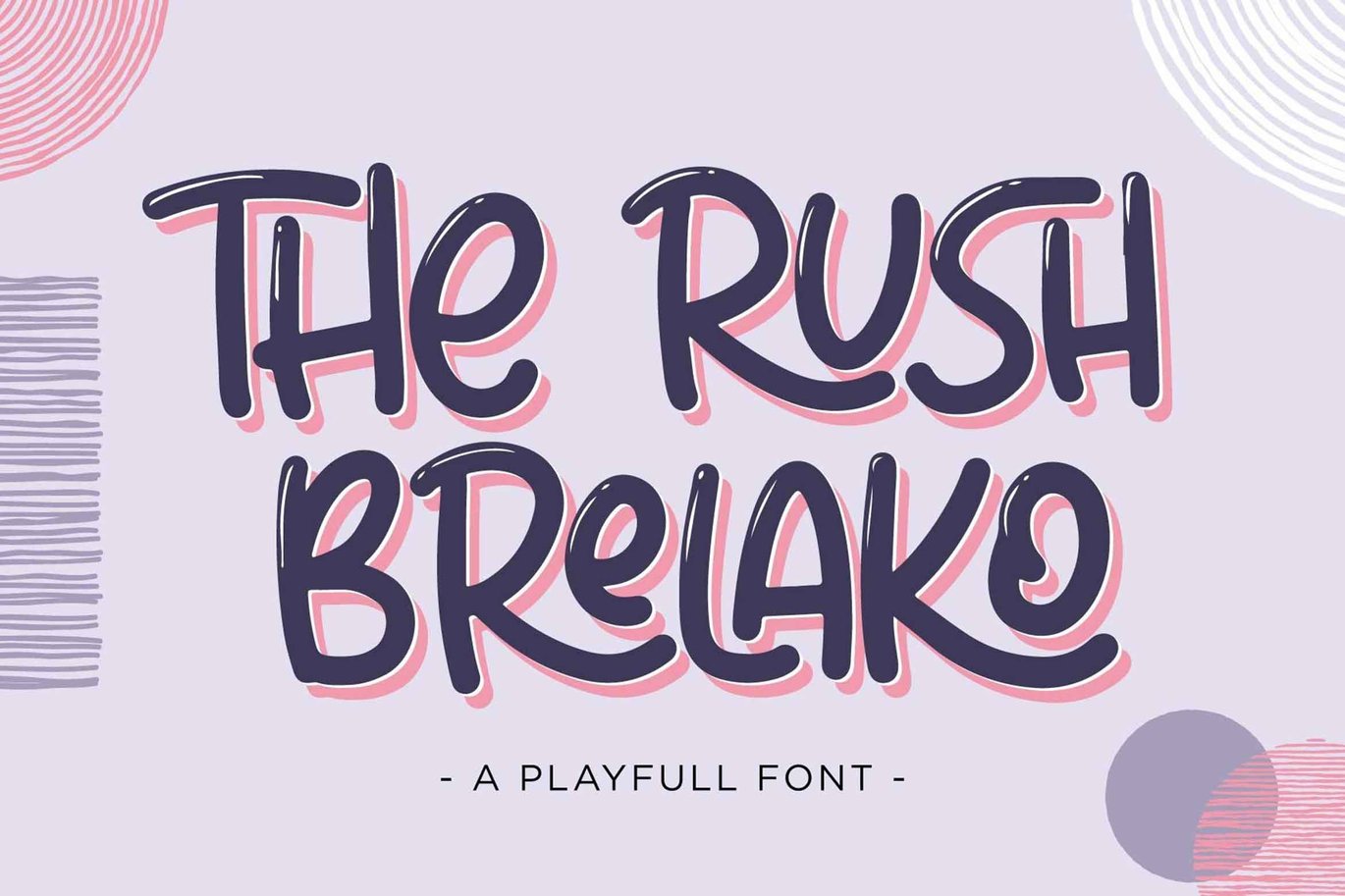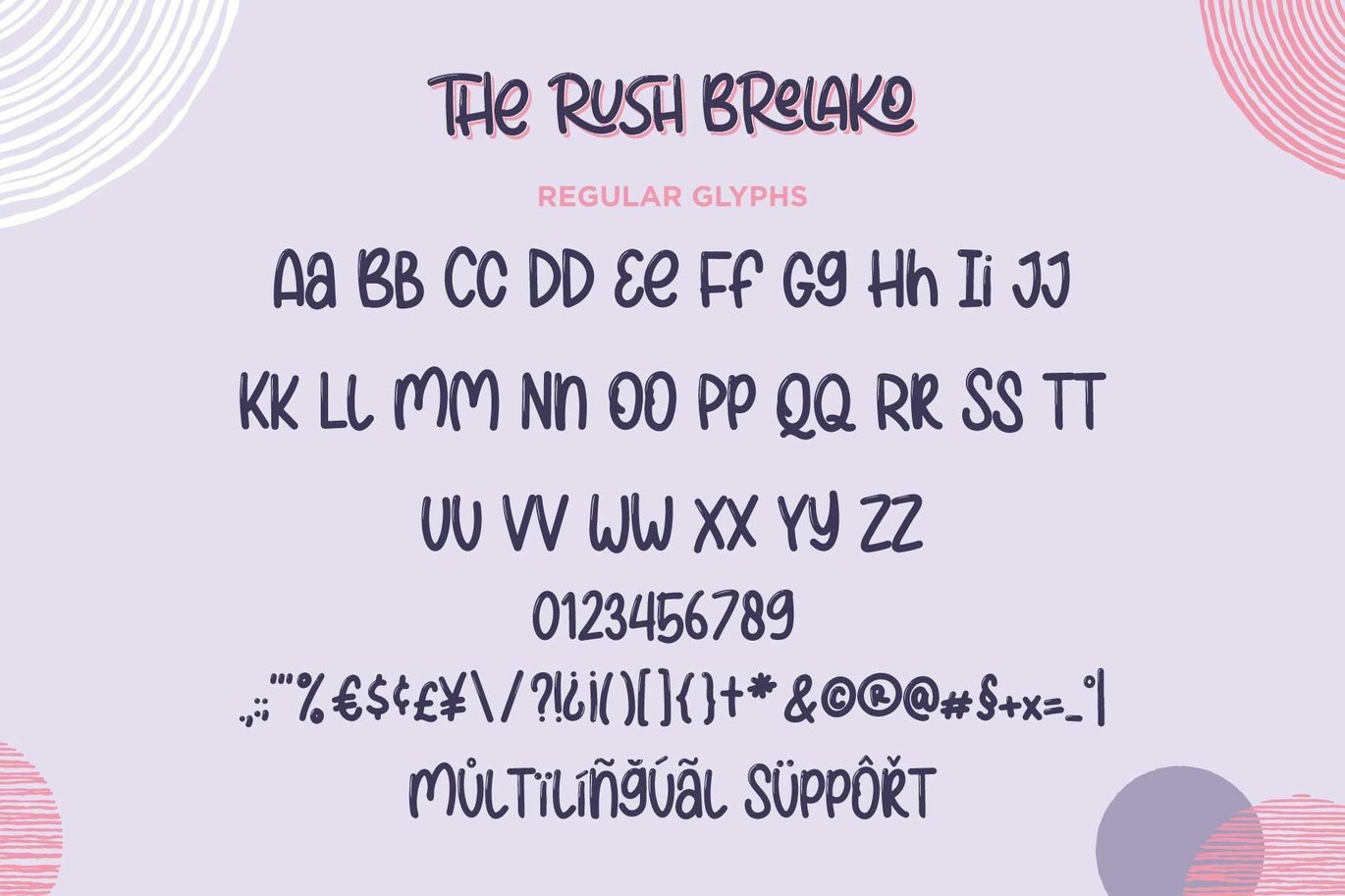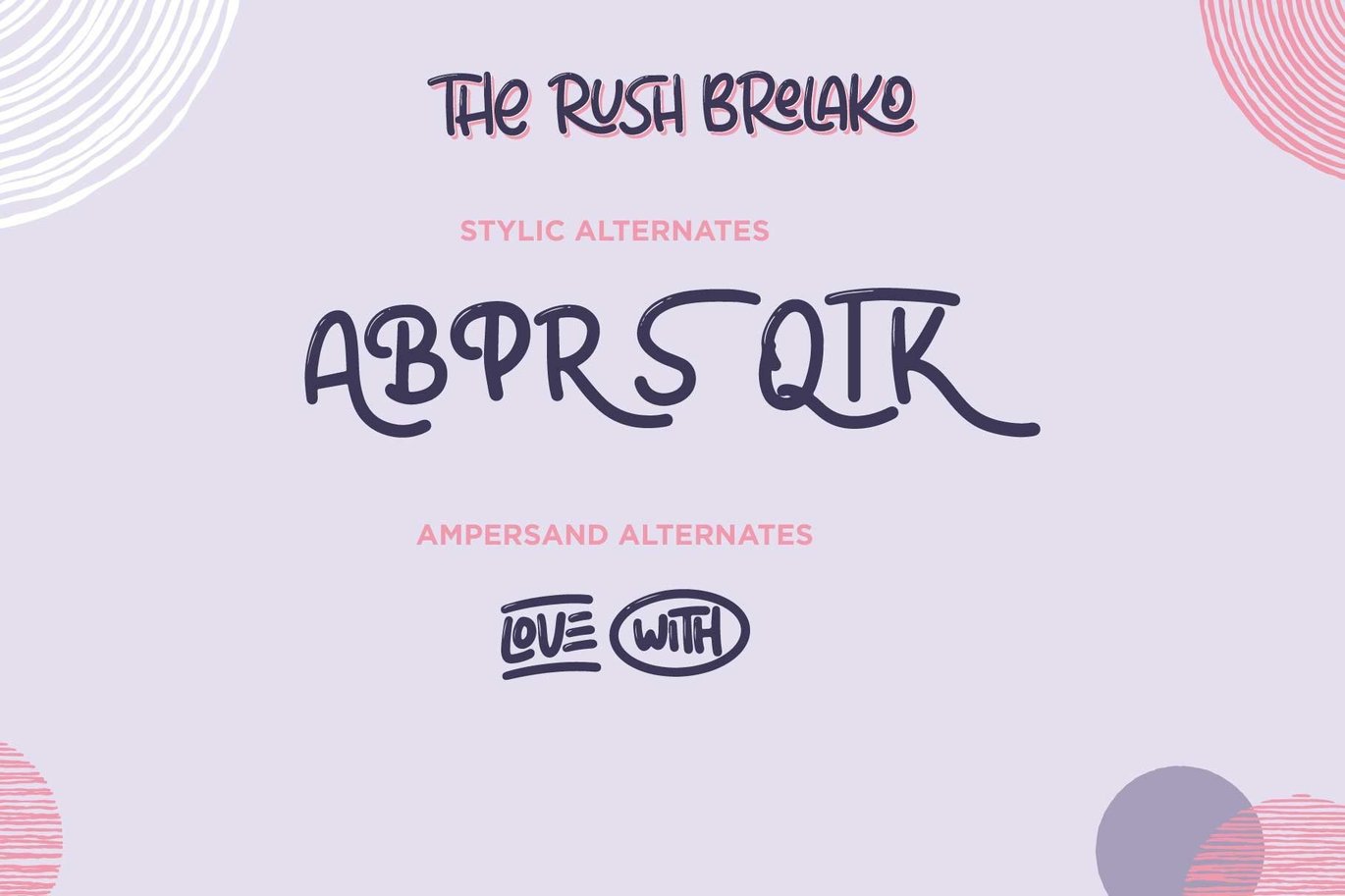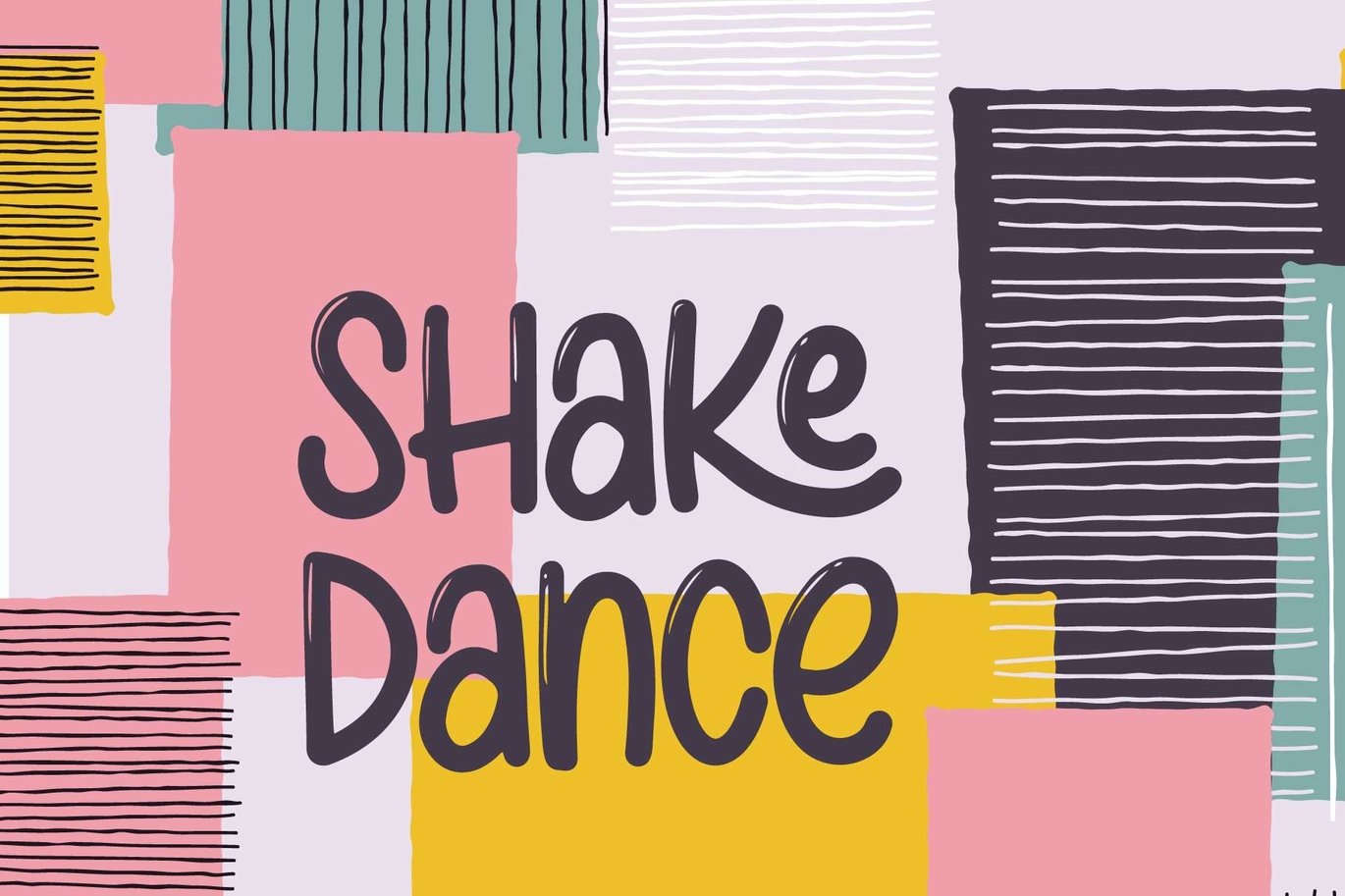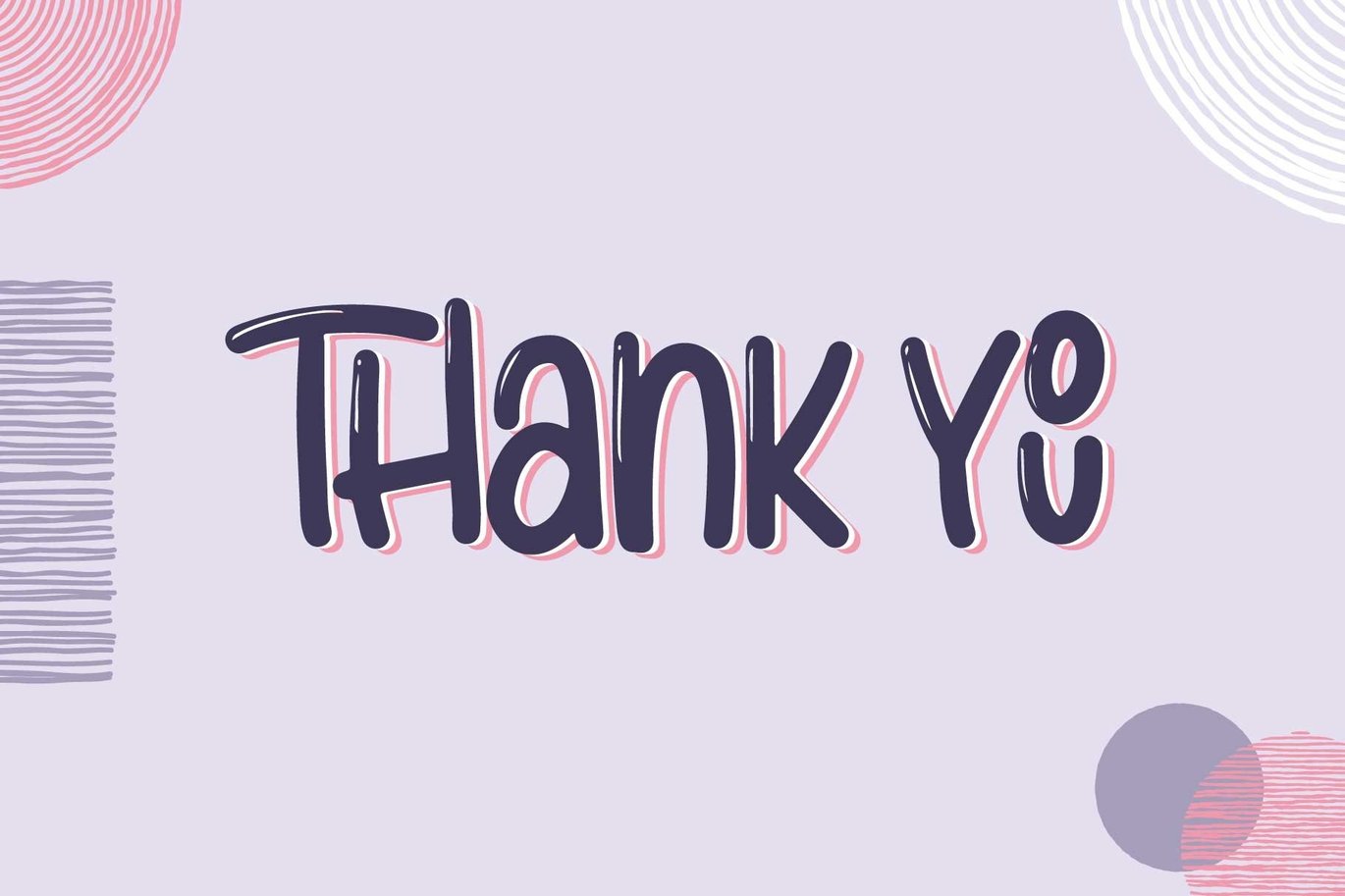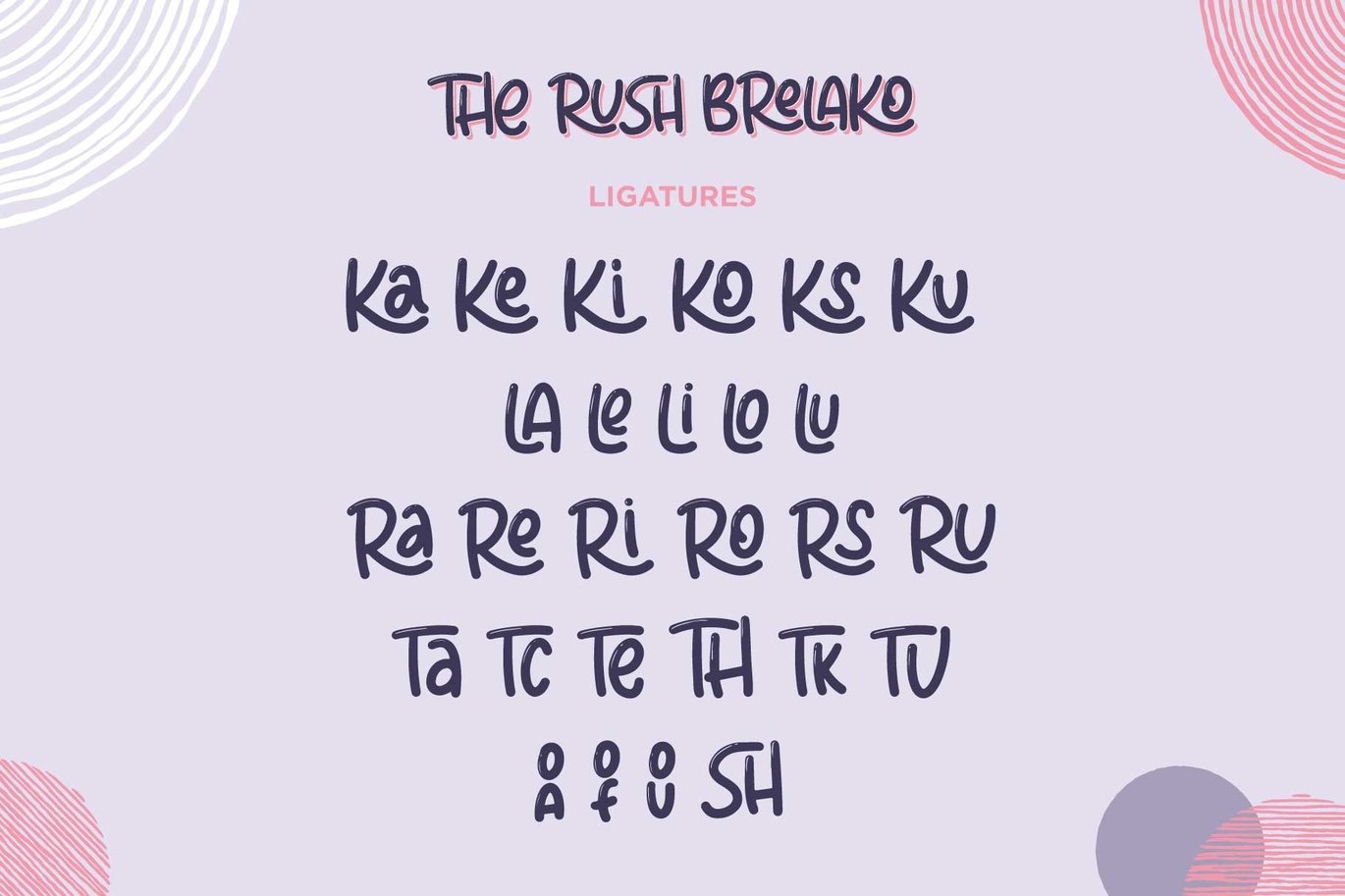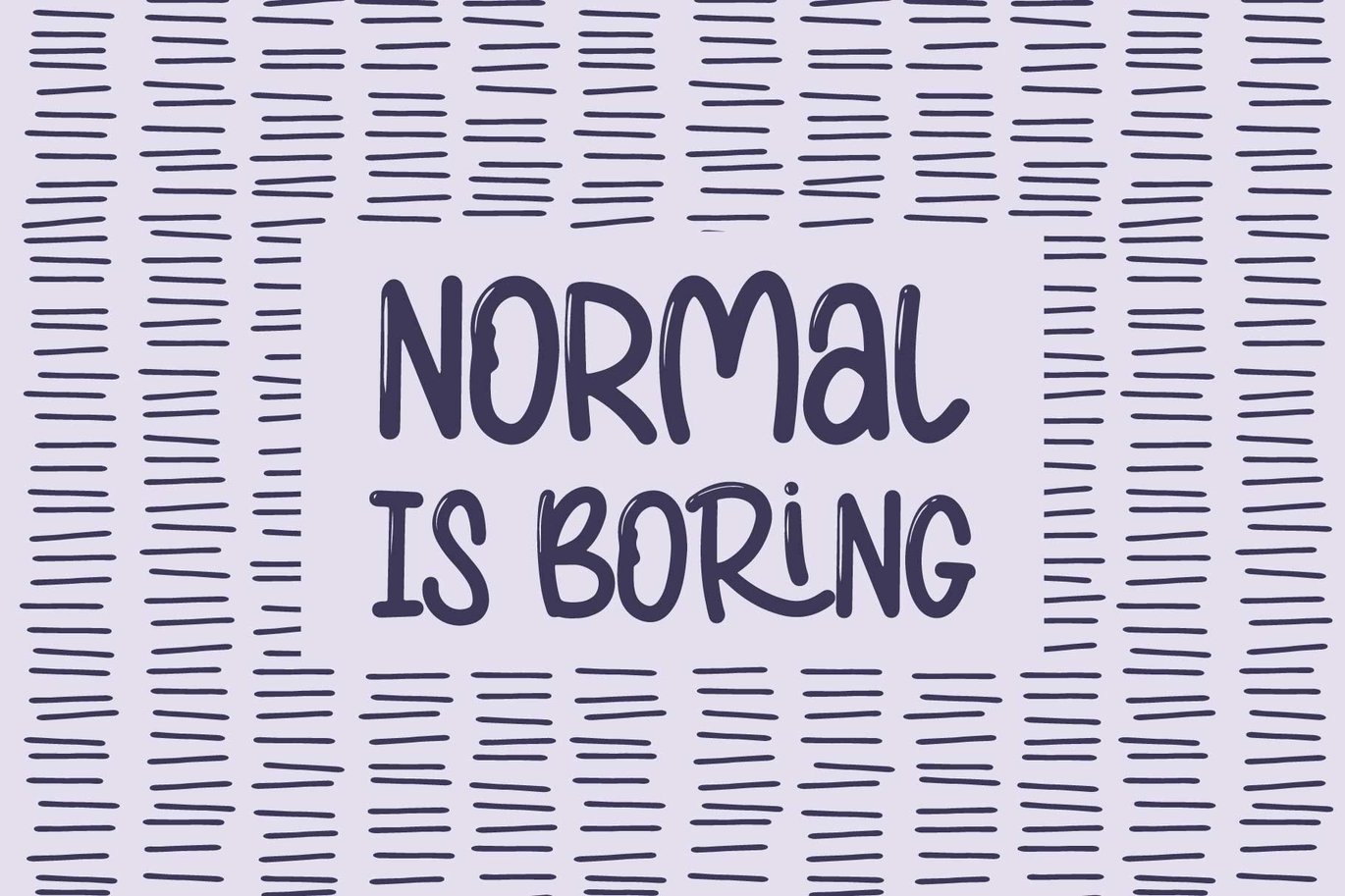
The Rush Brelako – Cartoon Font
The Rush Brelako is a Handwritten Playfull font carefully created with a touch of Cute.
The Rush Brelako is perfect for : branding projects, Book Cover, logo, wedding designs, social media posts, advertisements, product packaging, product designs, label, photography, watermark, invitation, stationery and any projects that need handwriting taste.